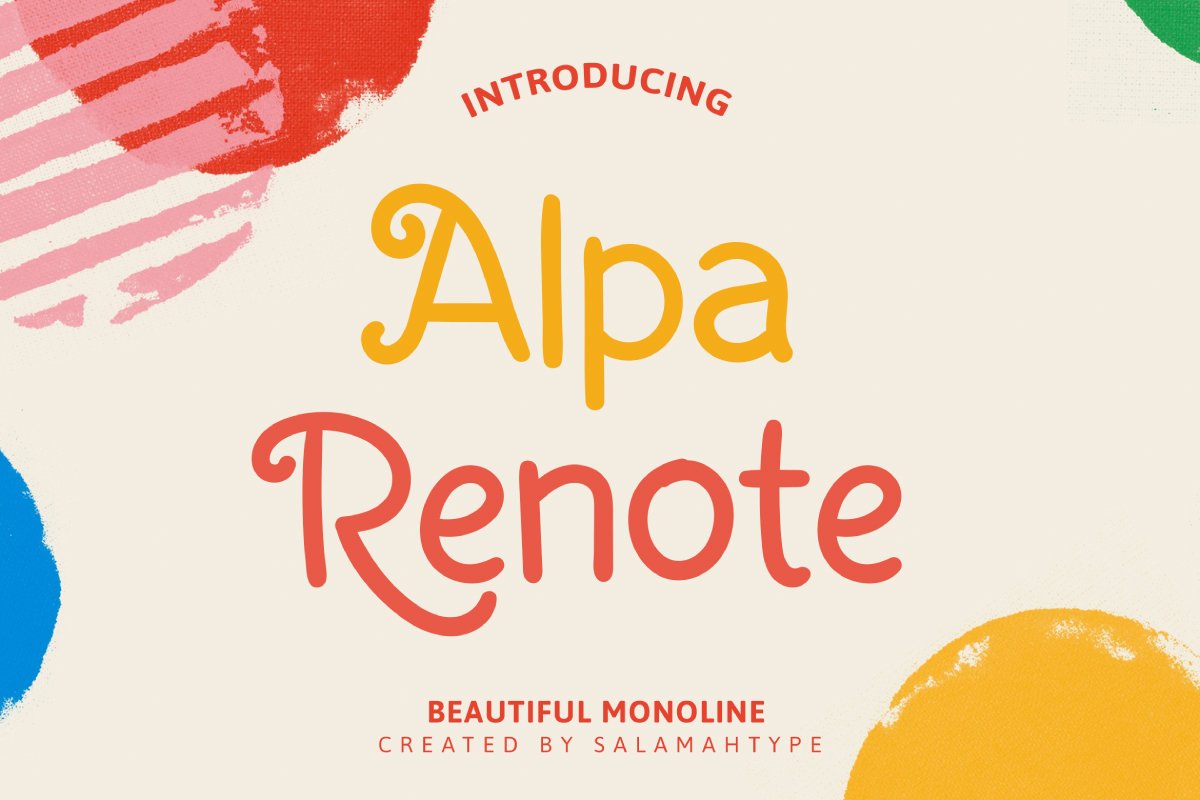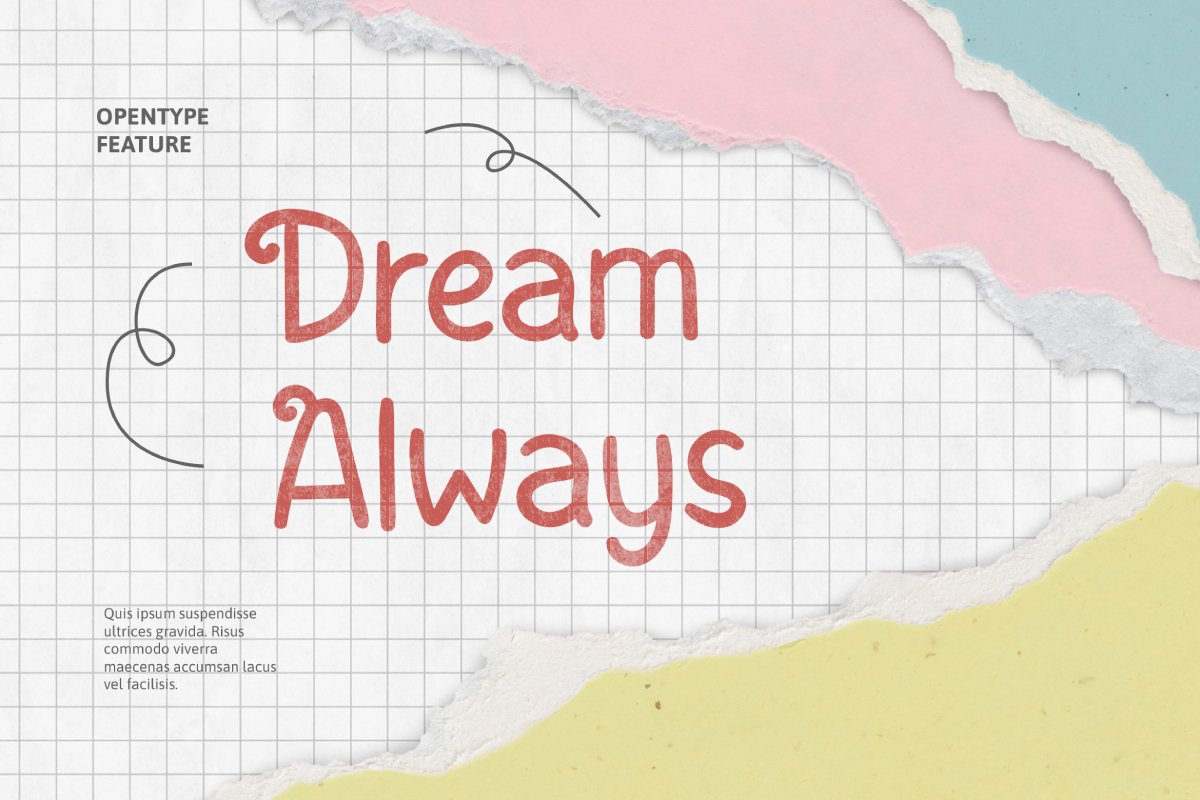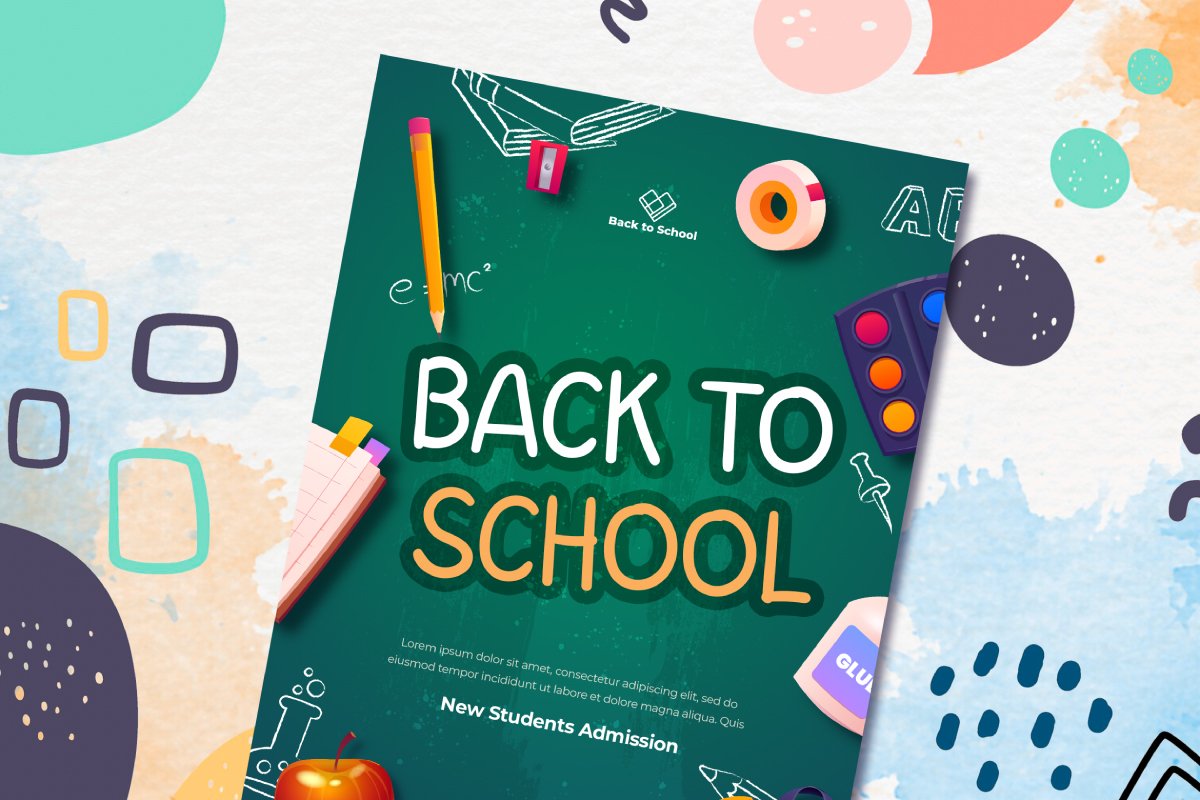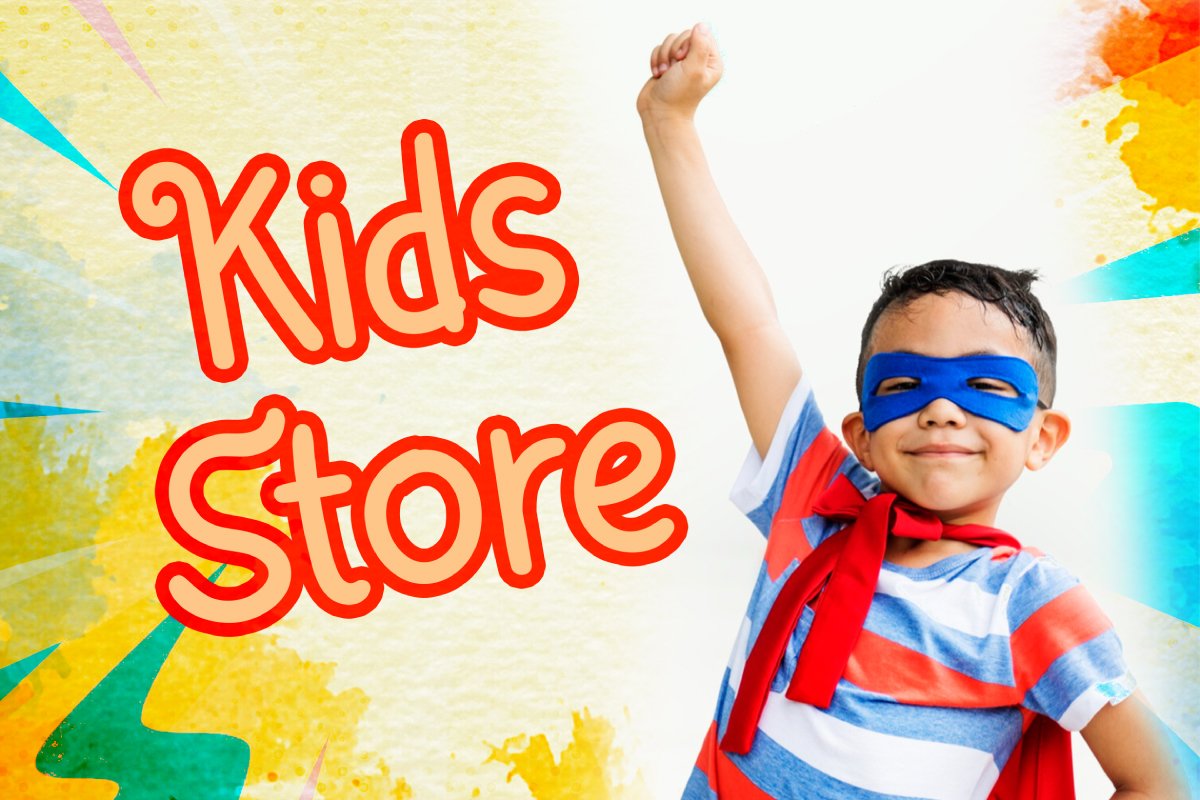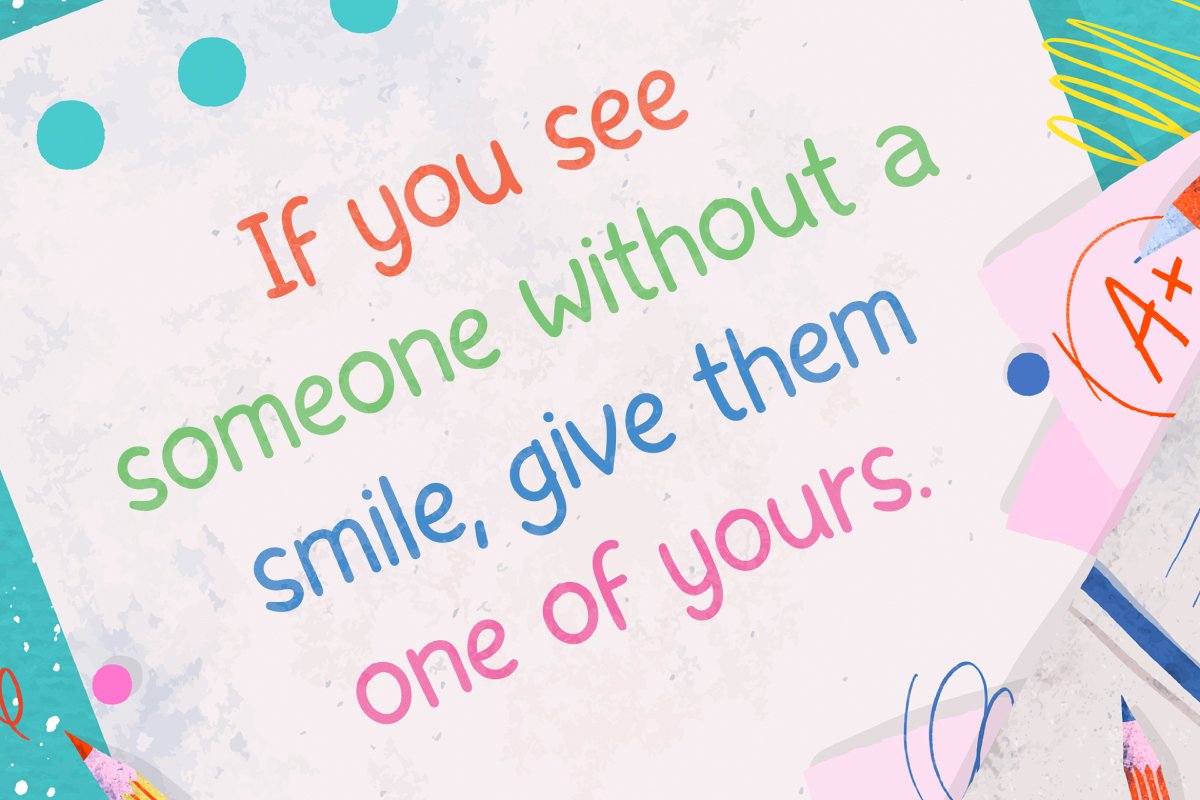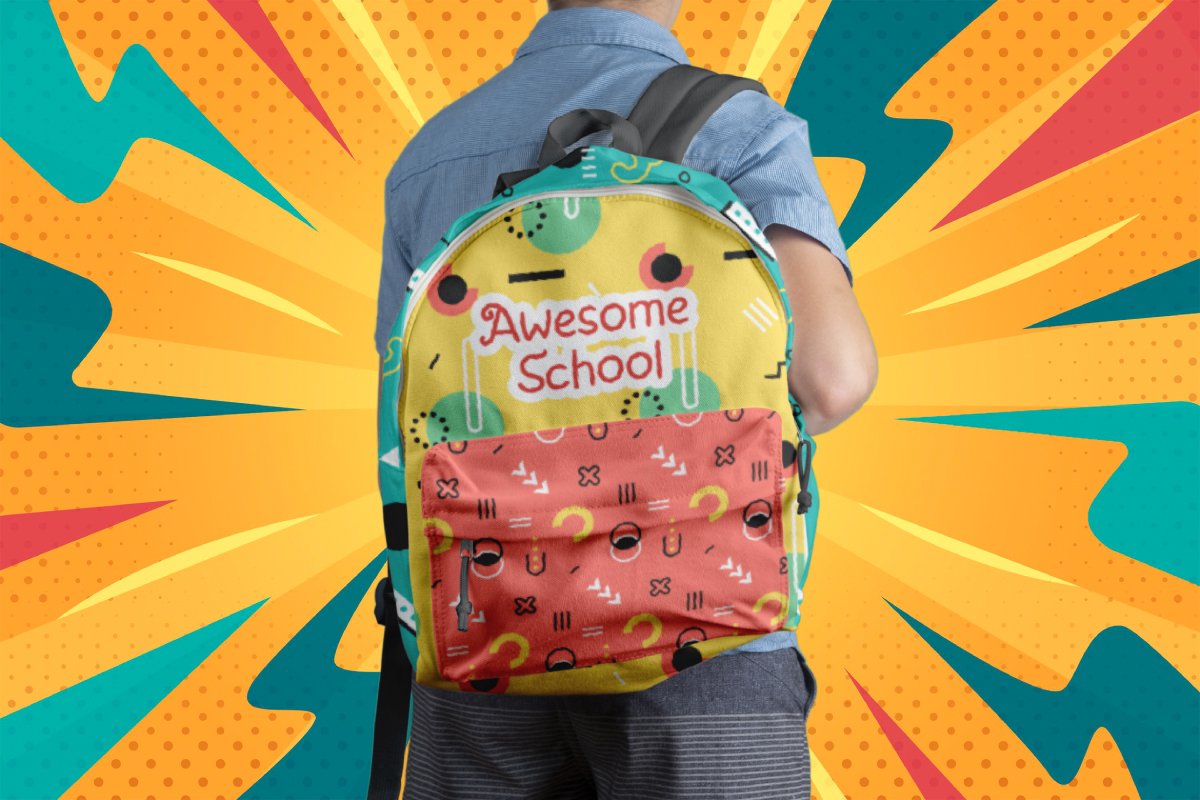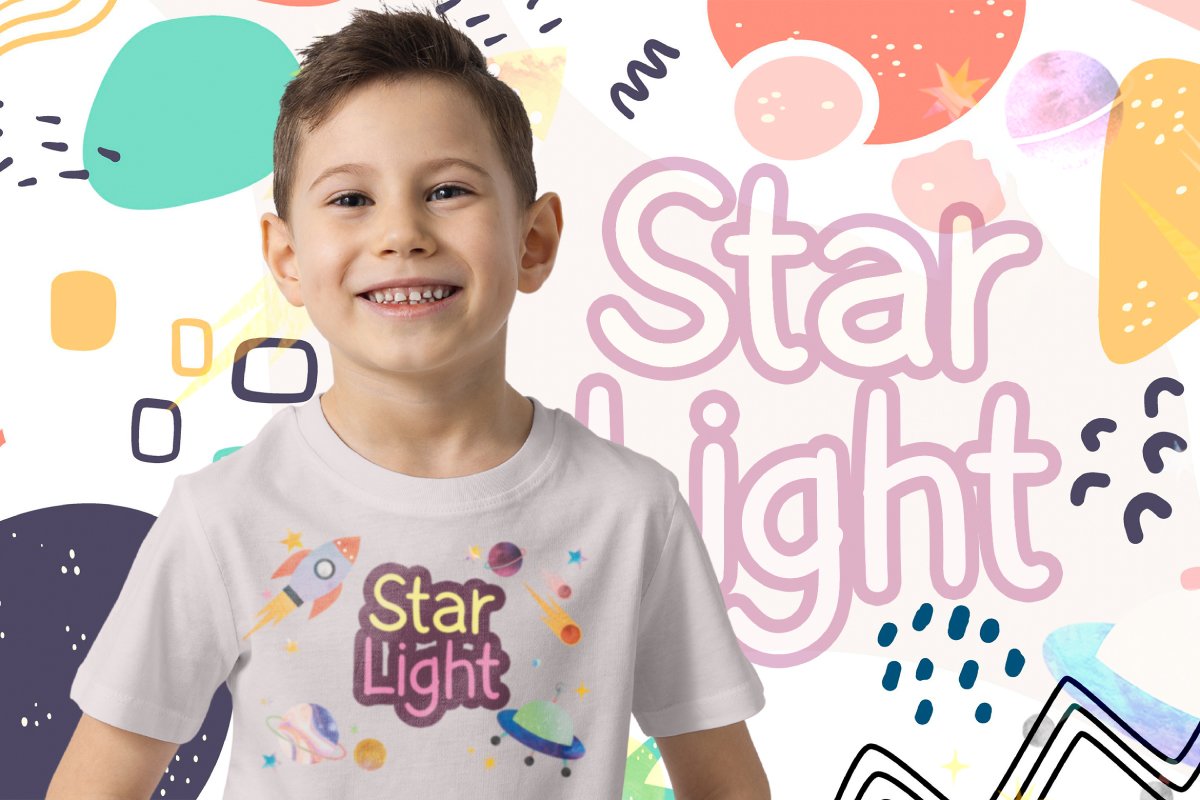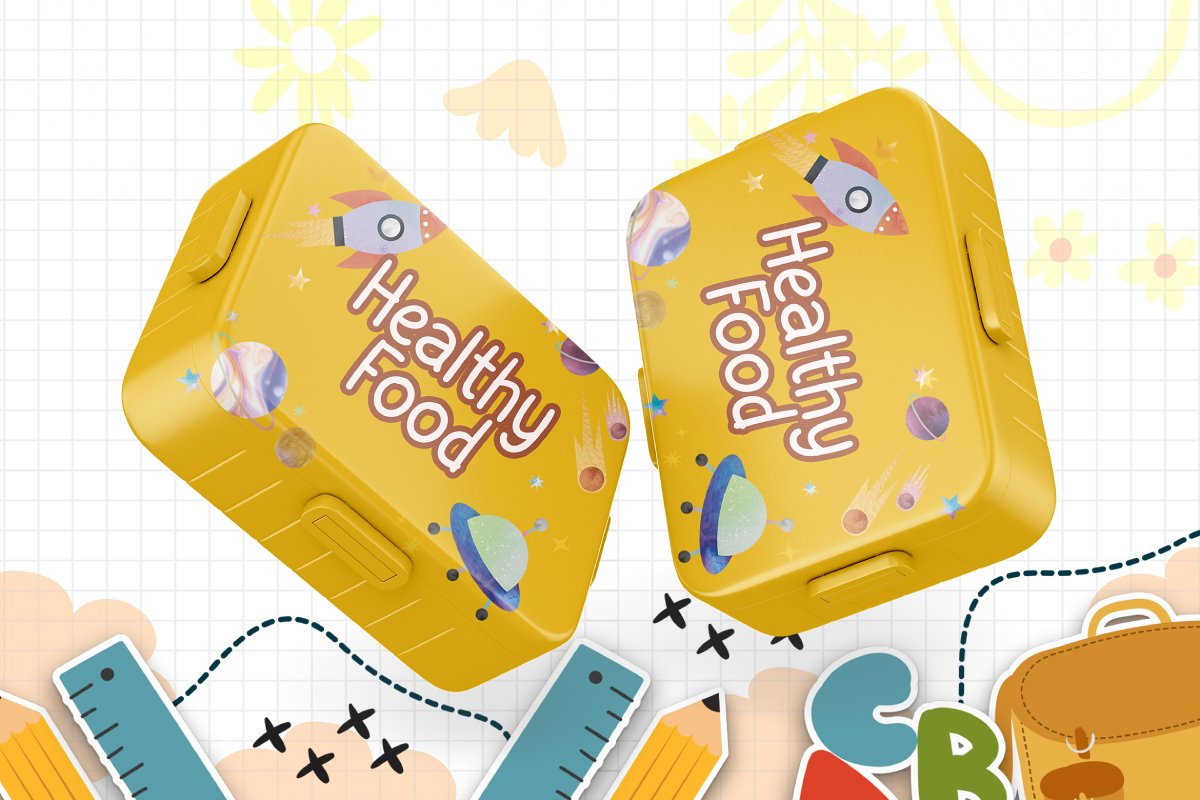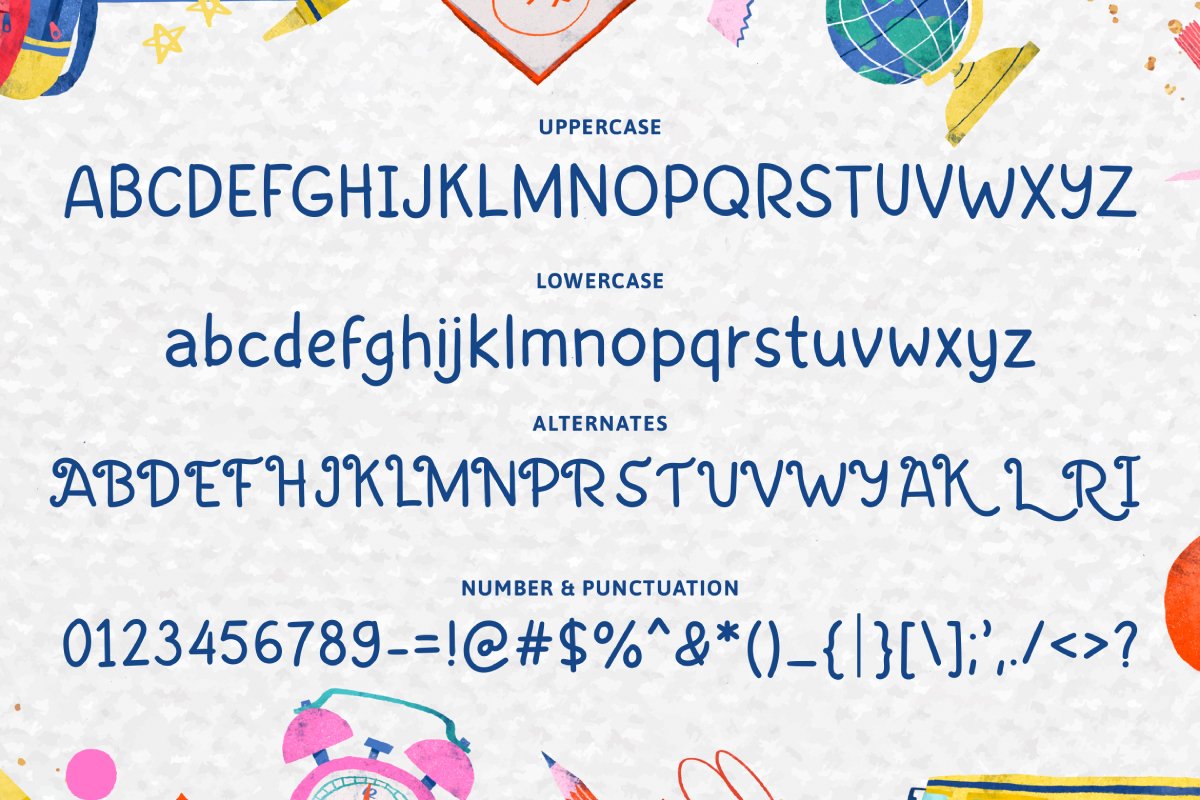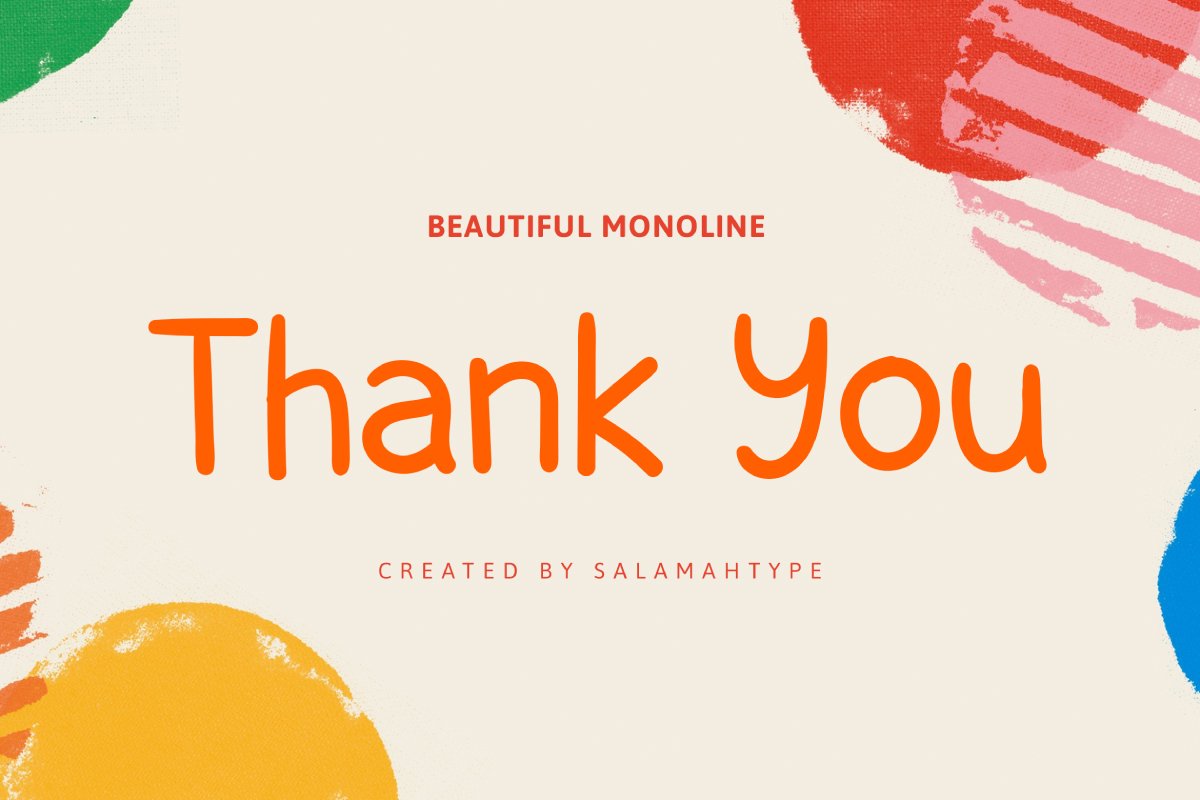
Alpa Renote Handwritten
Introducing “Alpa Renote” – A beautiful, cute and playful handwritten typeface. This font is perfect for stationery, notes, kids products, schools, logos, quotes or anything you want that needs a handwritten feel.
Features :
– Uppercase & lowercase
– Punctuation & symbol
– Alternates